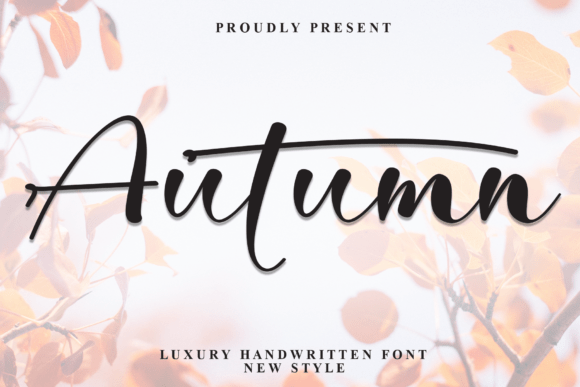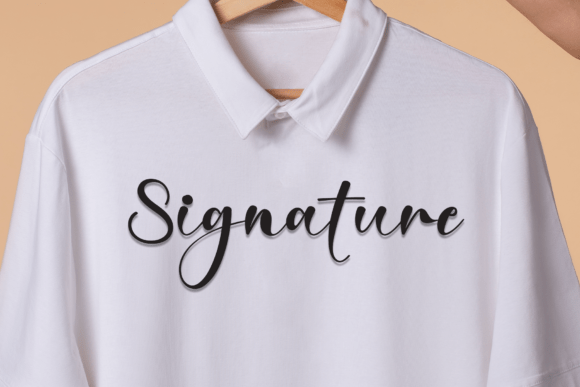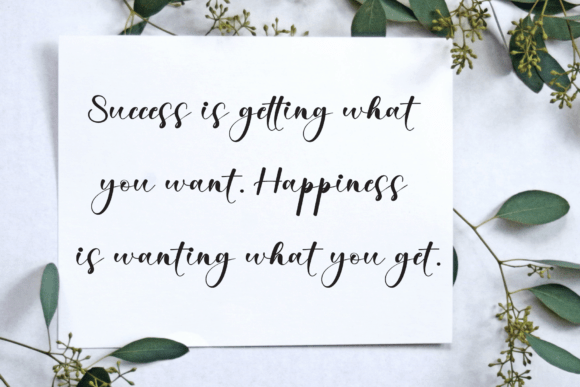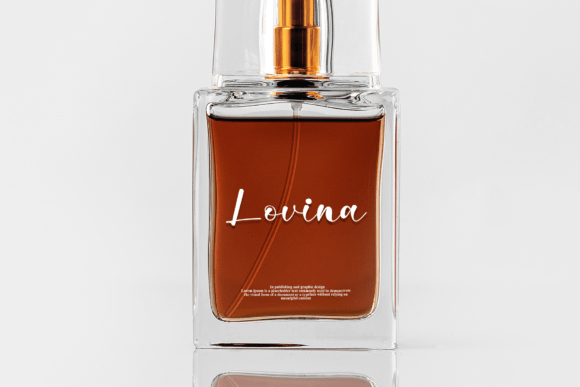
About the Autumn Font
From logos to headlines, the Autumn Font is the perfect choice for making a lasting impression. Autumn is a stylish handwritten script font that captures elegance and playfulness in every stroke. With flowing curves and a natural rhythm, it adds a personal, charming touch to invitations, branding, and social media. Its graceful design brings warmth, sophistication, and creativity to any project
Autumn excels in applications requiring a touch of handcrafted elegance, such as logos, wedding invitations, or short-form social media content. Its playful yet sophisticated nature makes it ideal for brands aiming for a personable and approachable image. However, its cursive style is less suitable for large blocks of text or UI elements where legibility is paramount.
Pairing Autumn with a clean sans-serif like Lato for body text provides excellent contrast and readability. For a more traditional feel, consider a classic serif font such as Garamond. A geometric sans-serif like Montserrat could offer a modern juxtaposition, balancing Autumn’s organic curves with sharp, contemporary lines.
Autumn’s overall personality is best described as charming and sophisticated, conveying warmth and approachability without sacrificing elegance. It’s a versatile choice for projects needing a touch of handmade quality and personality.